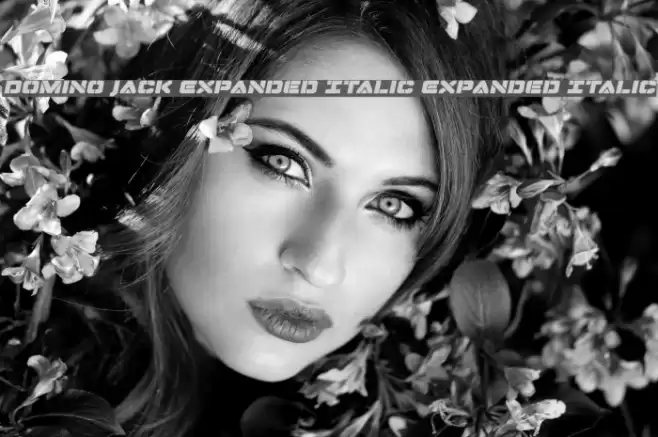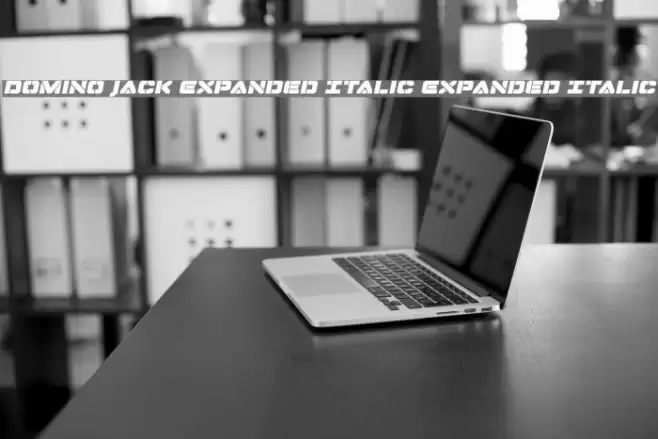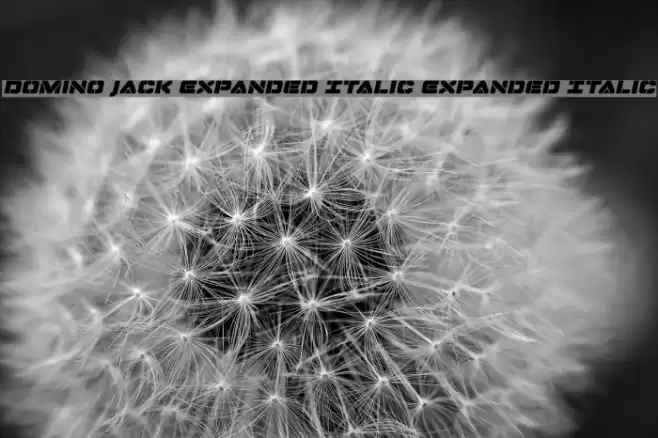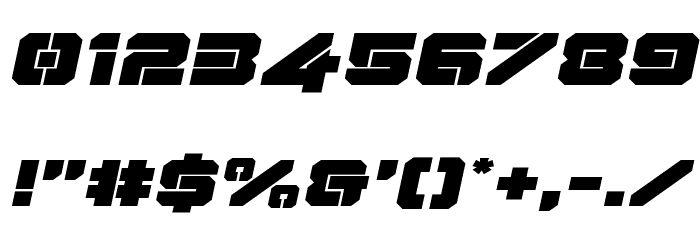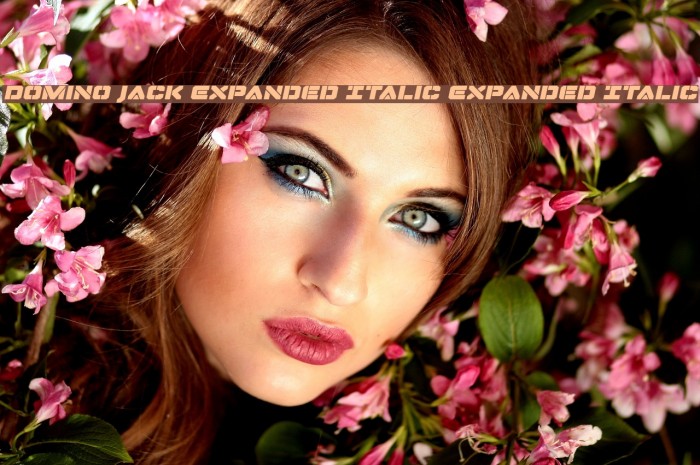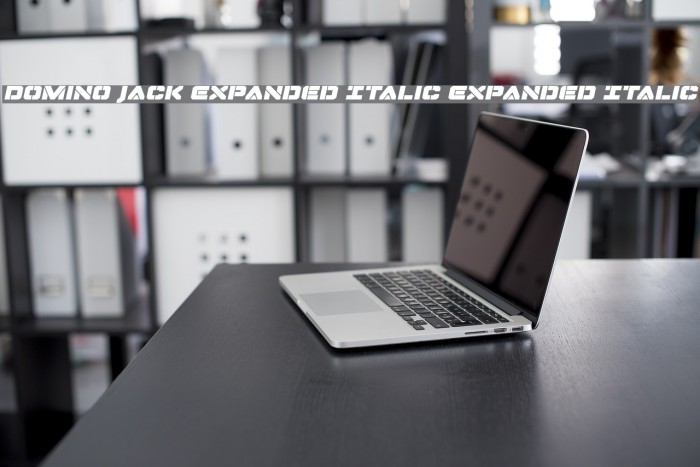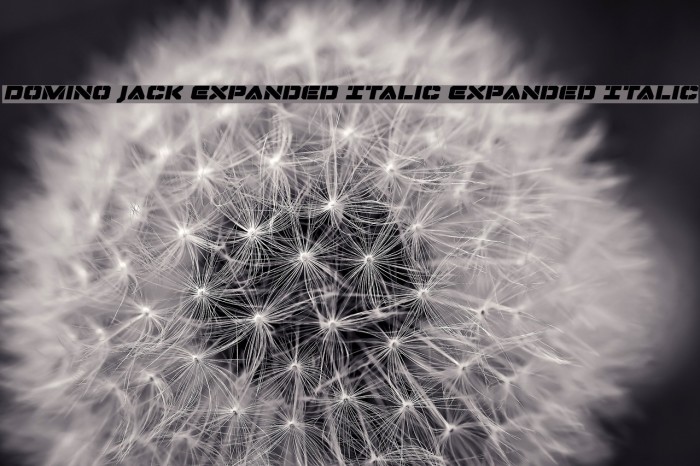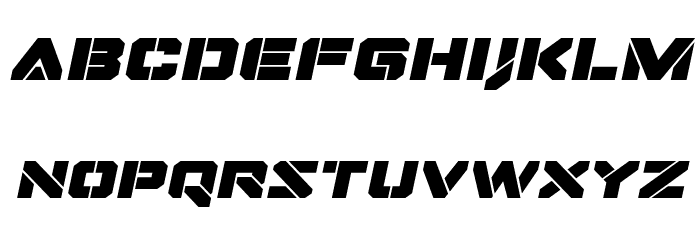
Domino Jack Expanded Italic Font
Domino Jack Expanded Italic Description
This font features a bold, geometric design with an italic slant, giving it a dynamic and modern appearance. The characters are expanded, providing a wide stance that enhances readability and impact. Each letter is crafted with sharp angles and clean lines, creating a futuristic and tech-inspired aesthetic. The numbers and special characters maintain the same stylistic elements, ensuring consistency across all glyphs. This font is ideal for projects that require a strong visual presence and a contemporary feel.
A bold, expanded, and italic geometric font with a modern, tech-inspired style from Sci-fi fonts.
- Proposed Projects: Ideal for technology branding, futuristic posters, video game titles, and dynamic advertising campaigns.